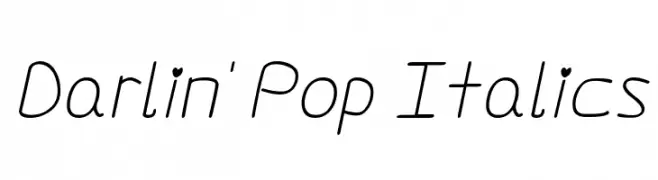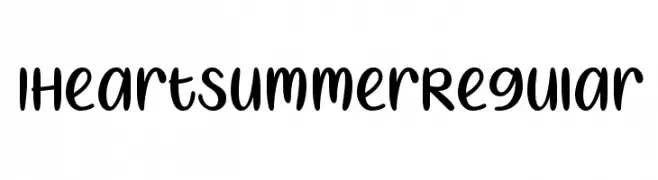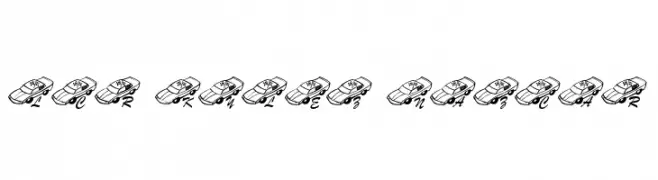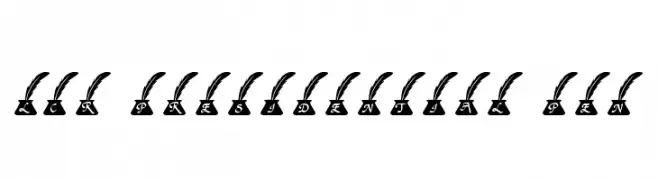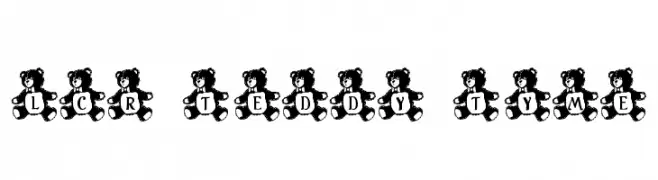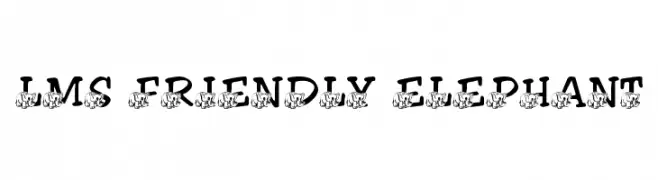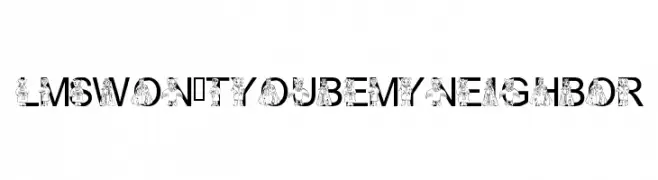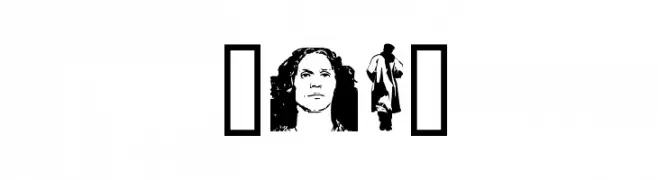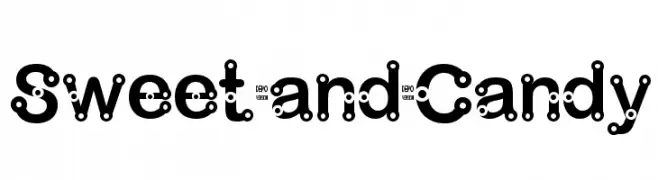
A playful, candy-inspired font with bold, rounded letters connected by circular elements.
A decorative font featuring characters integrated into cartoon car illustrations.
A decorative serif font with characters in ink pots topped by quills.
A playful font with characters embedded in teddy bear designs, ideal for children's projects.
A bold, playful font with elephant illustrations accompanying each letter.
A whimsical font featuring beloved children's show characters integrated into bold, sans-serif letters.
A collage-inspired decorative font with pictorial glyphs and surreal imagery.
A playful, handwritten font with italicized, heart-accented characters.
A playful, handwritten font with heart-shaped 'O's, ideal for creative and joyful designs.